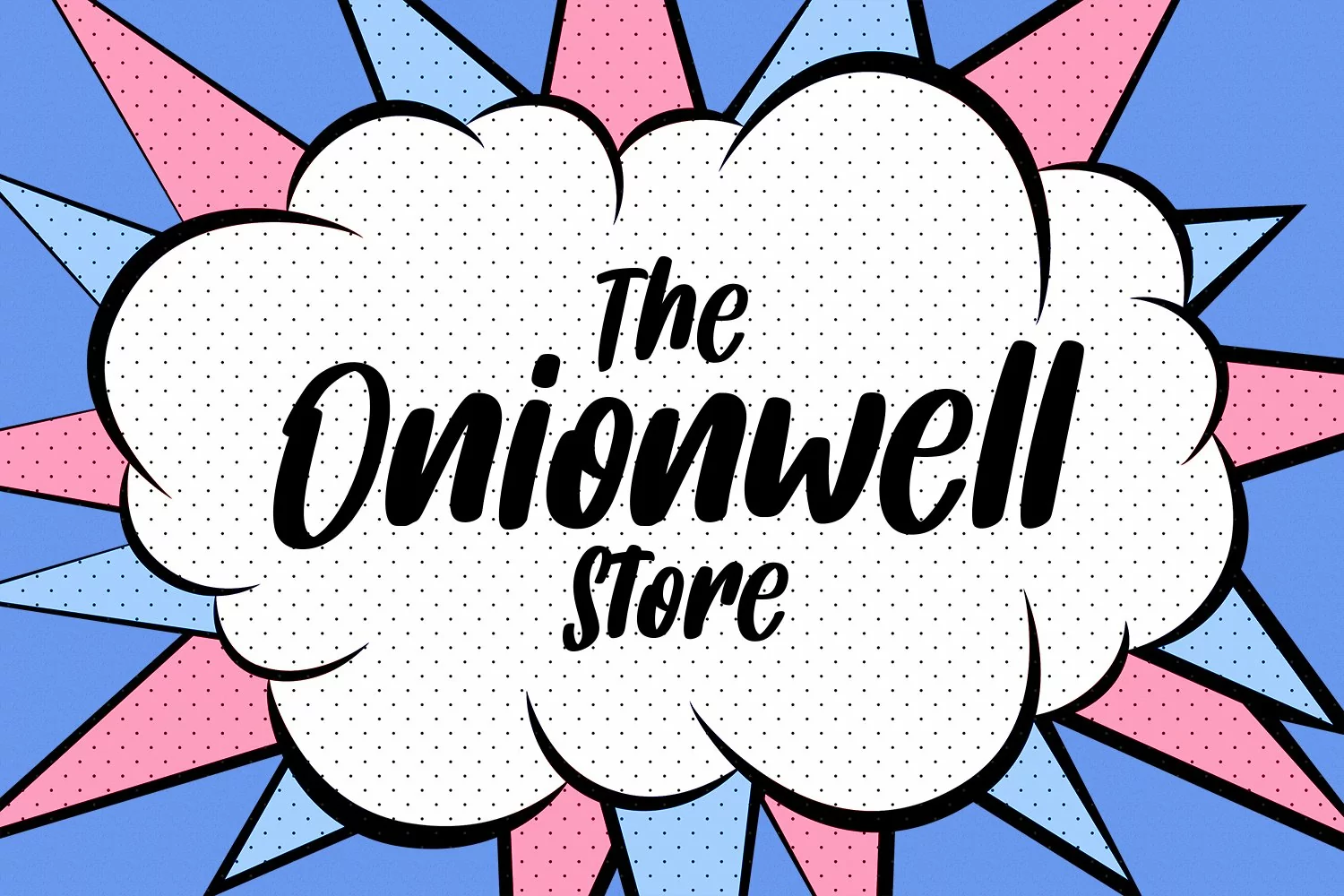
Fishercat is a cool handwritten font such a comic vibes. With sharp bold stroke, slant and fun character with a bit of ligatures. To give you an extra creative work. Fishercat font support multilingual more than 100+ language. This font is good for logo design, Social media, Movie Titles, Books Titles, a short text even a long text letter and good for your secondary text font with sans or serif. Make a stunning work with Fishercat font.